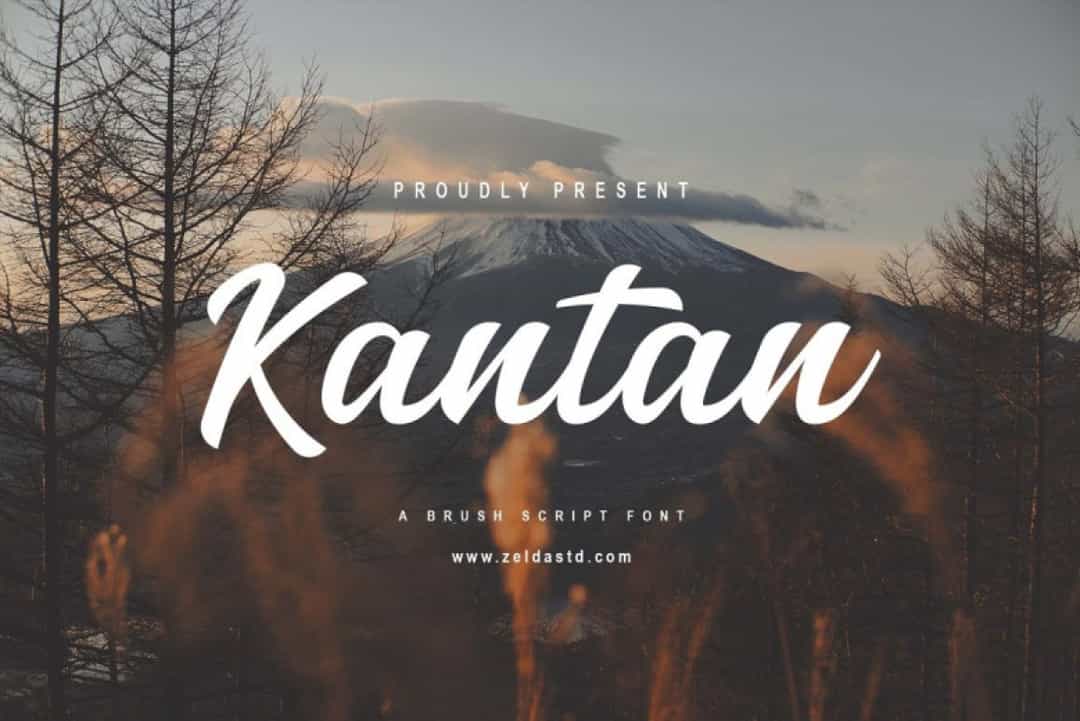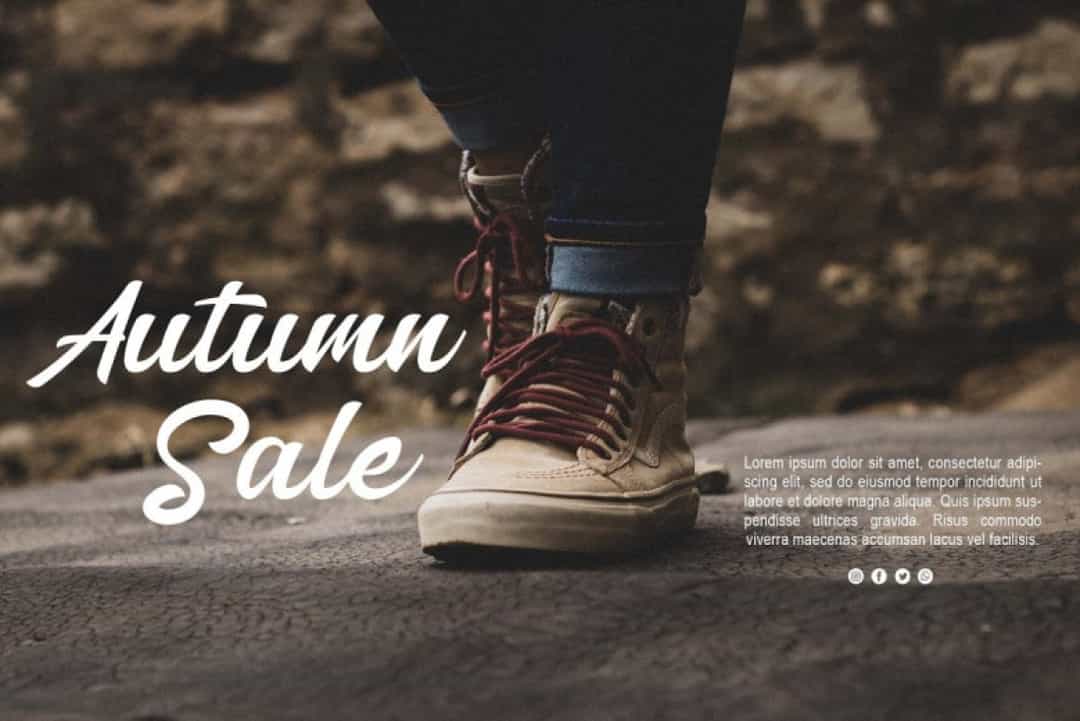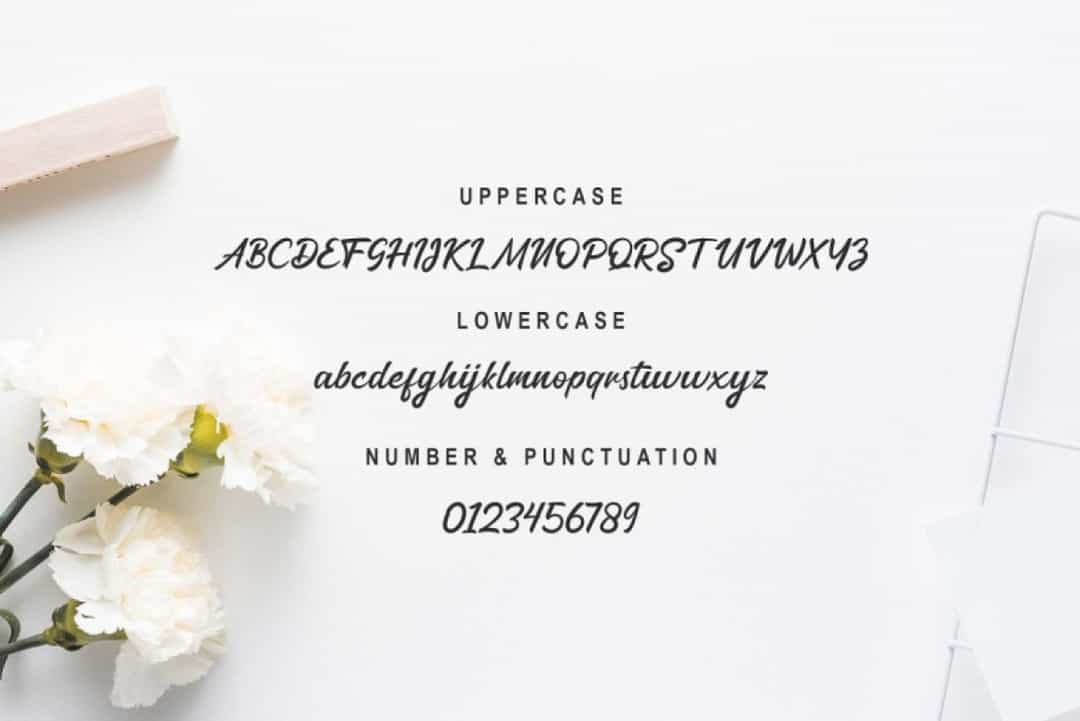
Kantan is a handwritten display script font with an impressively authentic feel, ideal for posters. Ideal applications include logos, posters Jerseys Stickers invitation cards brochurere and more!